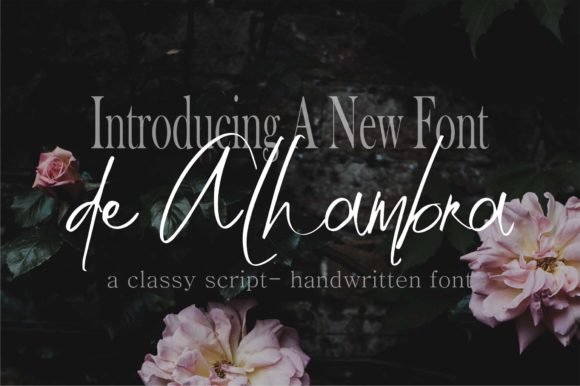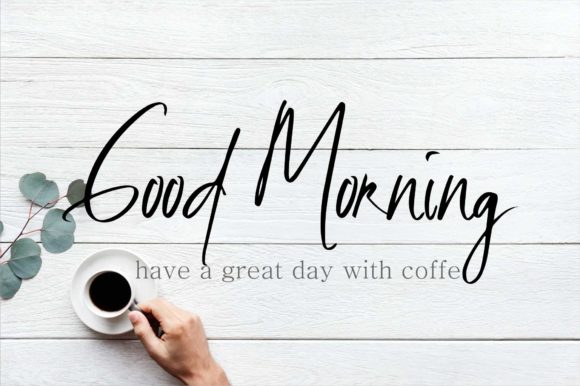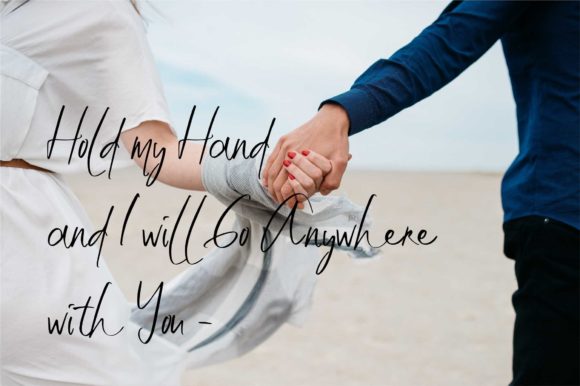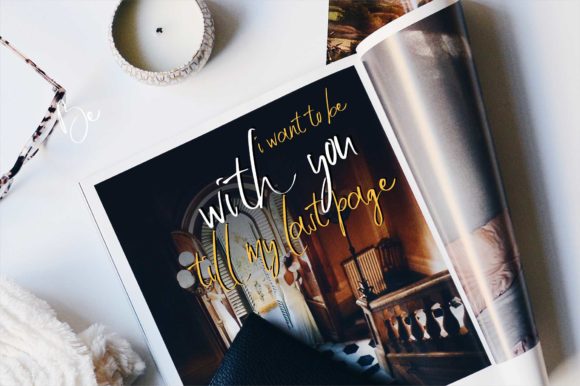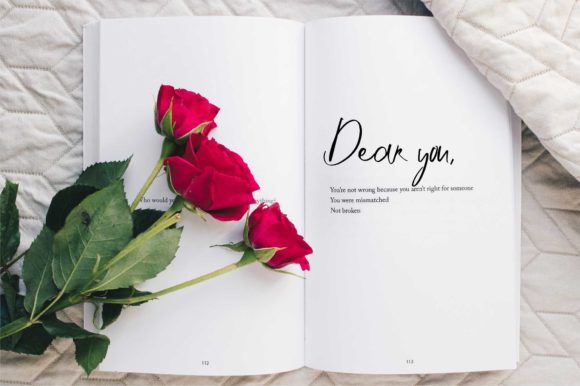
De Alhambra Font
About De Alhambra Font
The De Alhambra is an unique handwritten script font. It has a classy style which can be used for wedding invitations, labels, signature, posters, love quotes, blog posts, social media and more.